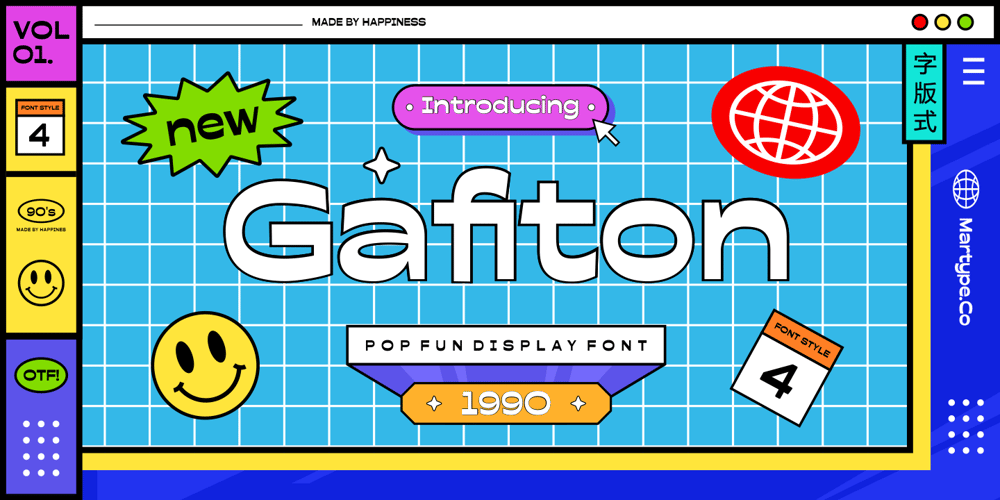
Gafiton
Gafiton font
Gafiton Font Family was designed by Umar Al Farouq and published by Martype co. Gafiton contains 4 styles and family package options. Gafiton. A reverse contrast bold font suitable for display especially. Perfect for your daily project like for headline poster, packaging, social media, branding, or anything about pop and fun design.